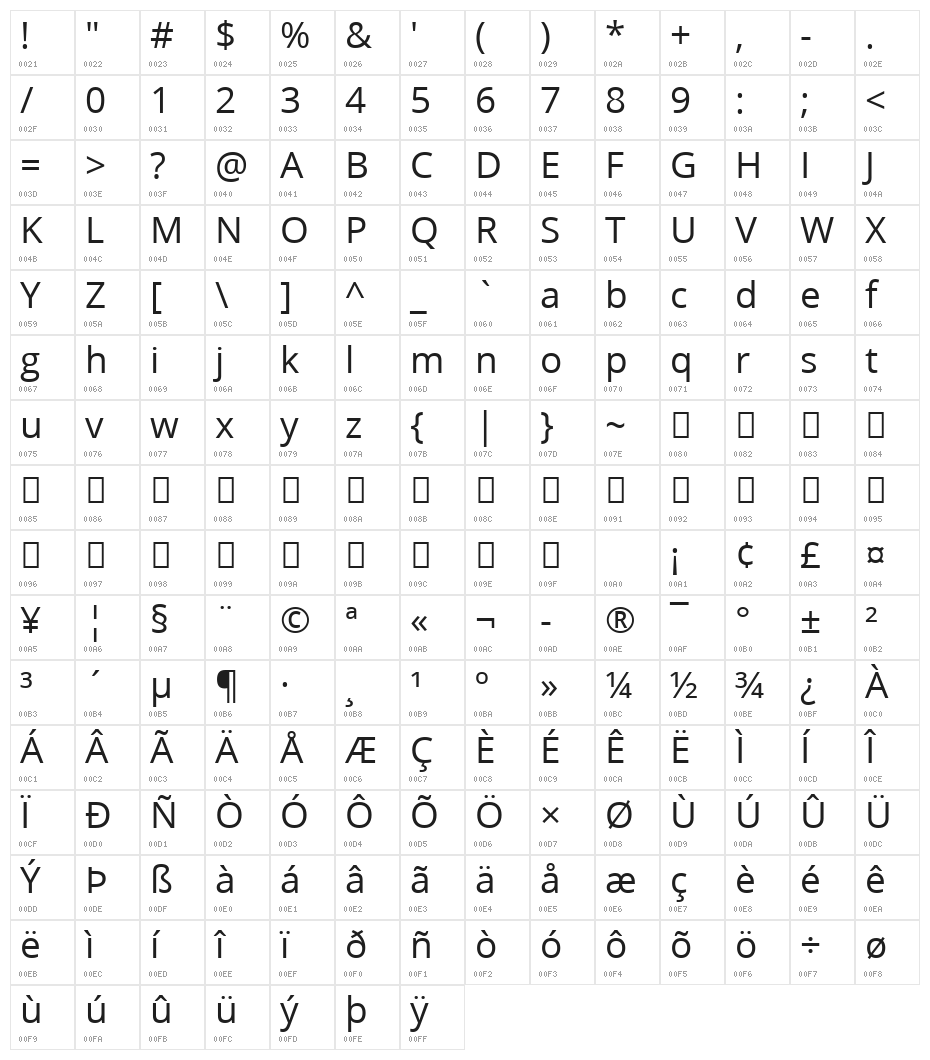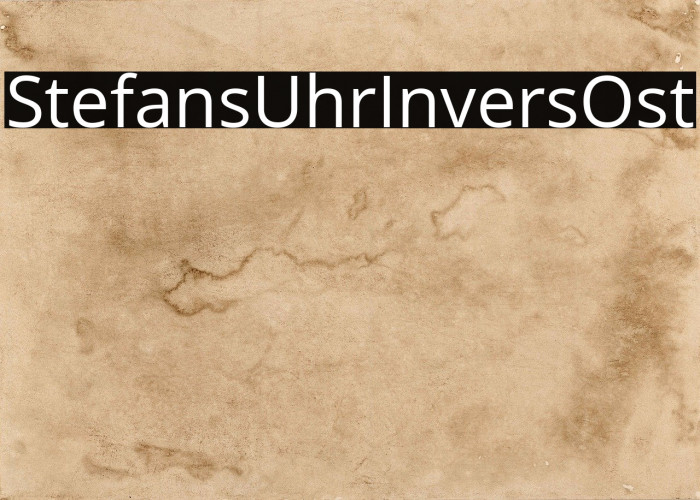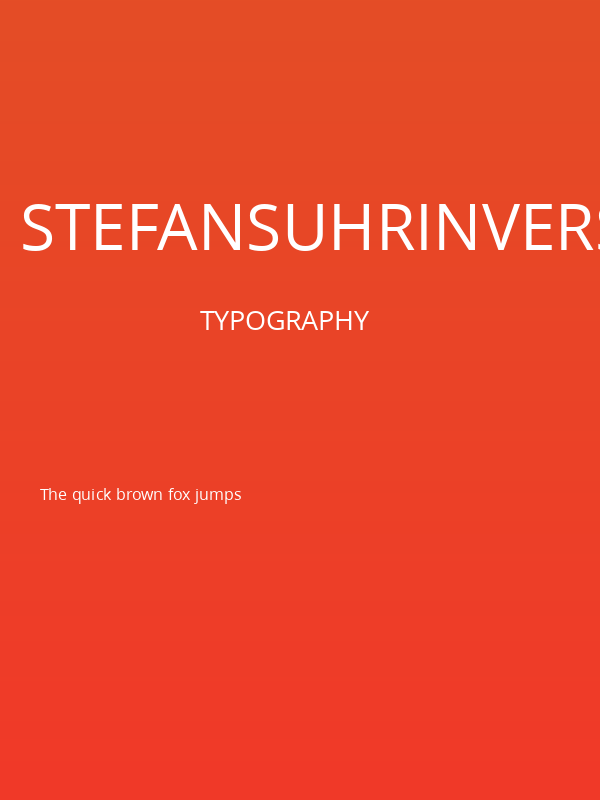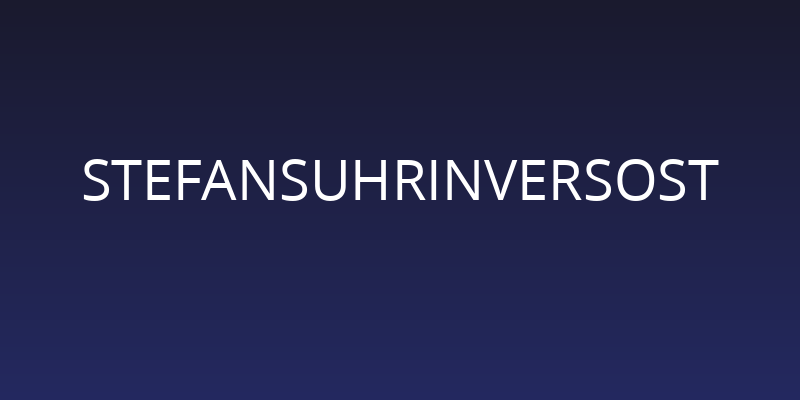
StefansUhrInversOst Font
StefansUhrInversOst Description
This font features a clean and modern sans-serif design, characterized by its simplicity and readability. The letters are evenly spaced and have a uniform stroke width, which contributes to its legibility. The uppercase and lowercase letters are well-proportioned, with a slight distinction in height that maintains clarity. The numerals are straightforward and align well with the overall style, making them easy to read. Special characters are designed to blend seamlessly with the alphabet, maintaining the font's cohesive appearance. This font's minimalistic approach makes it versatile for various applications.
Use CaseHeadlines, Body text, Logos
Proposed ProjectsIdeal for web design, corporate branding, user interfaces, and print media.